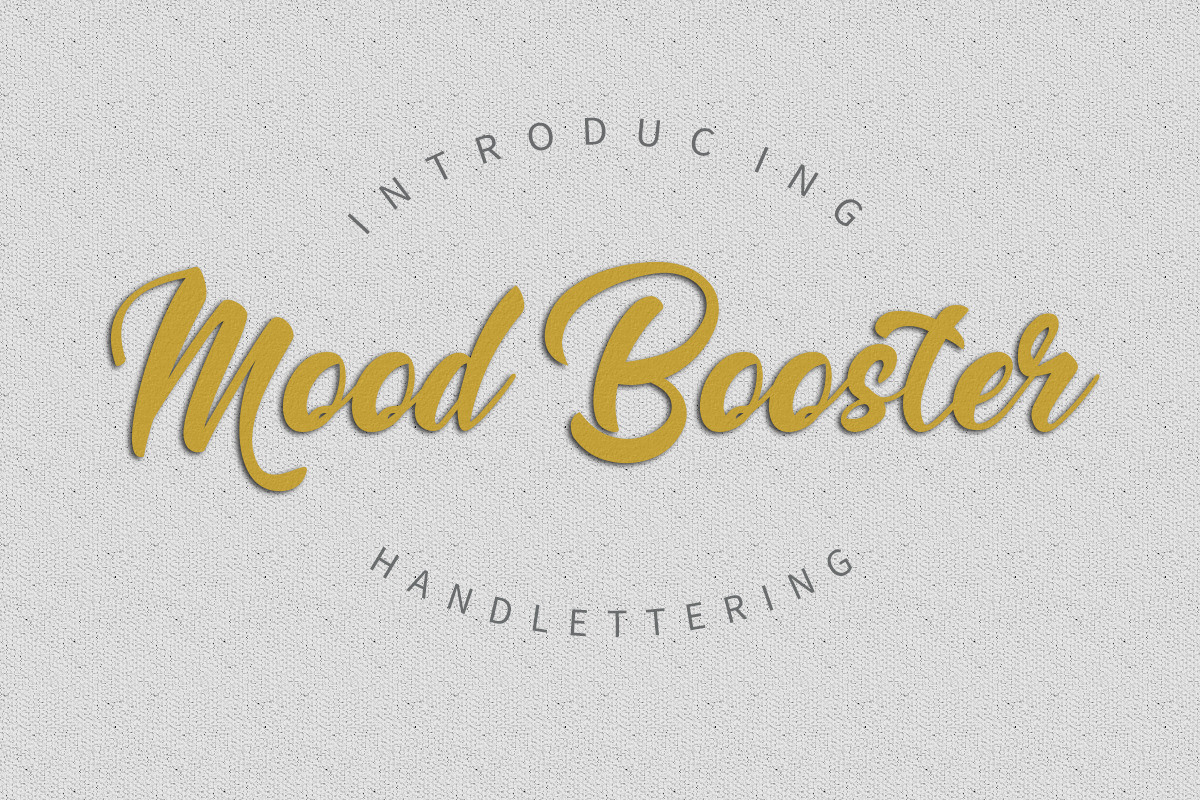
Mood Booster Font
Mood Booster is handmade authentic font brush with stylish street lifestyle and looks like extreme sport style usage. Best match for logos, header, titles, prints, apparel & other creative process possibilities.